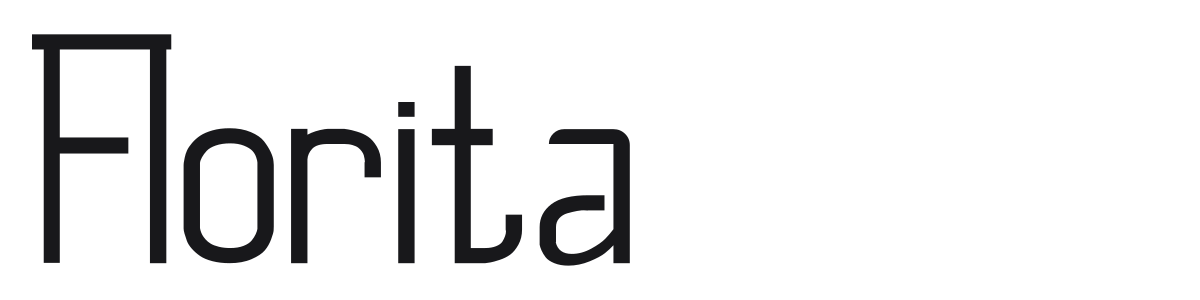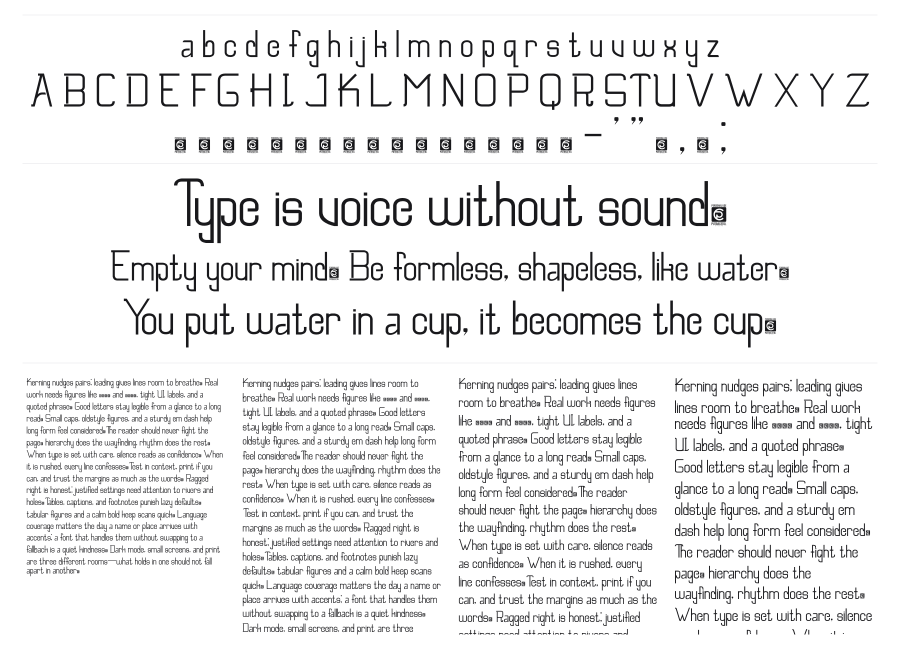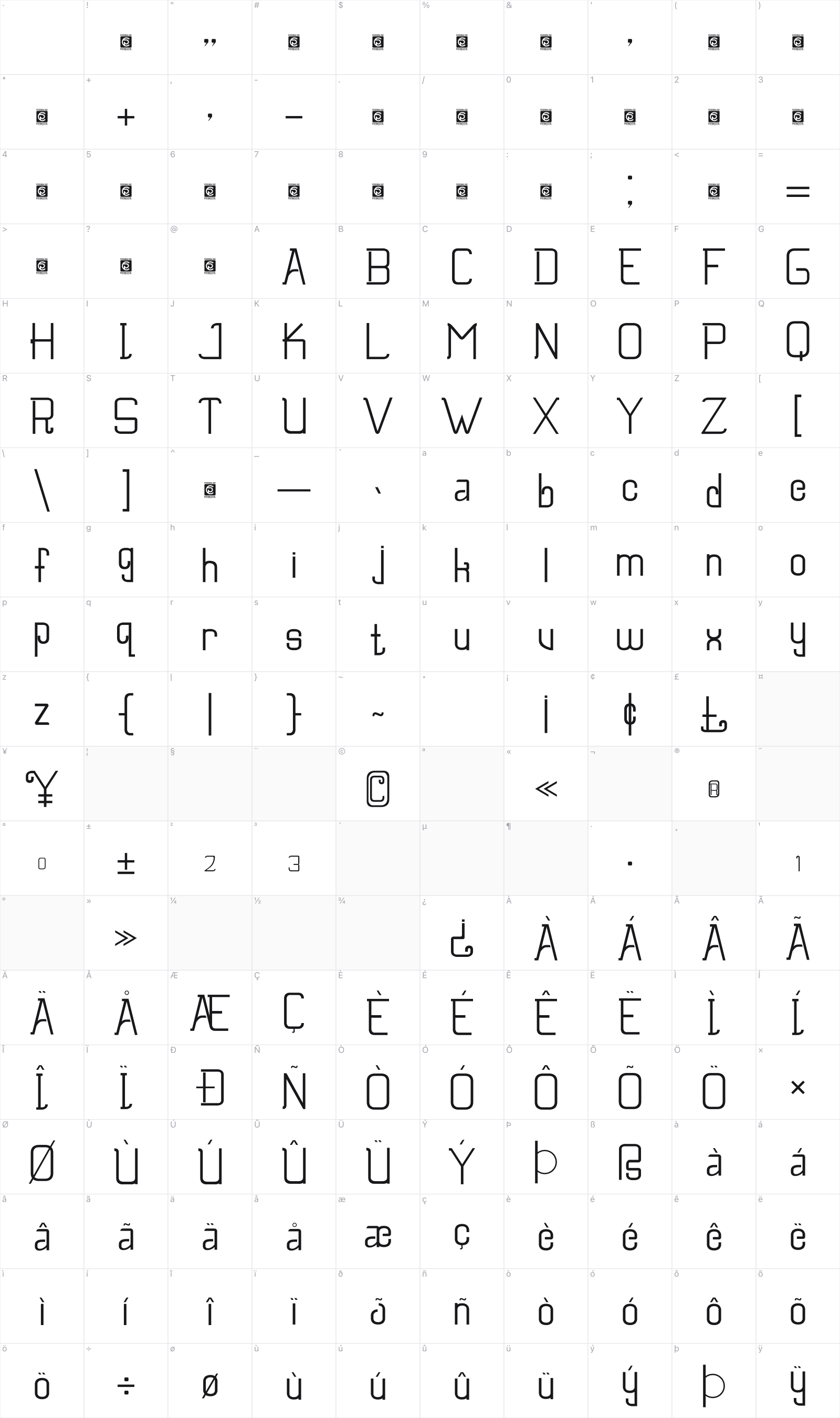
Florita
Florita is a tall, light geometric sans with squared construction and a quietly airy presence. Its near-monoweight strokes and elongated proportions give it a contemporary minimalist quality that suits editorial and fashion contexts naturally. The subtle notched junctions keep it from feeling sterile.